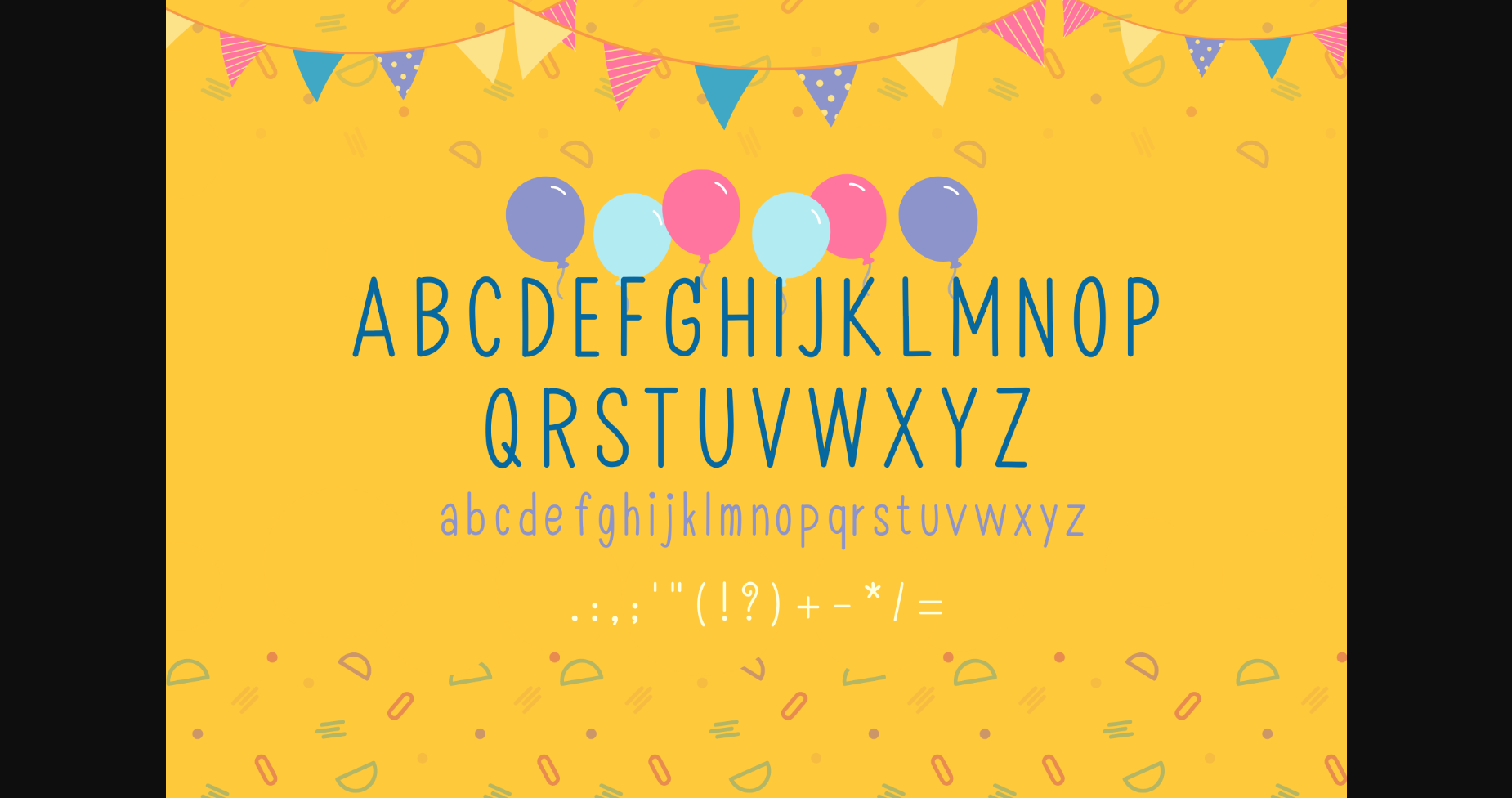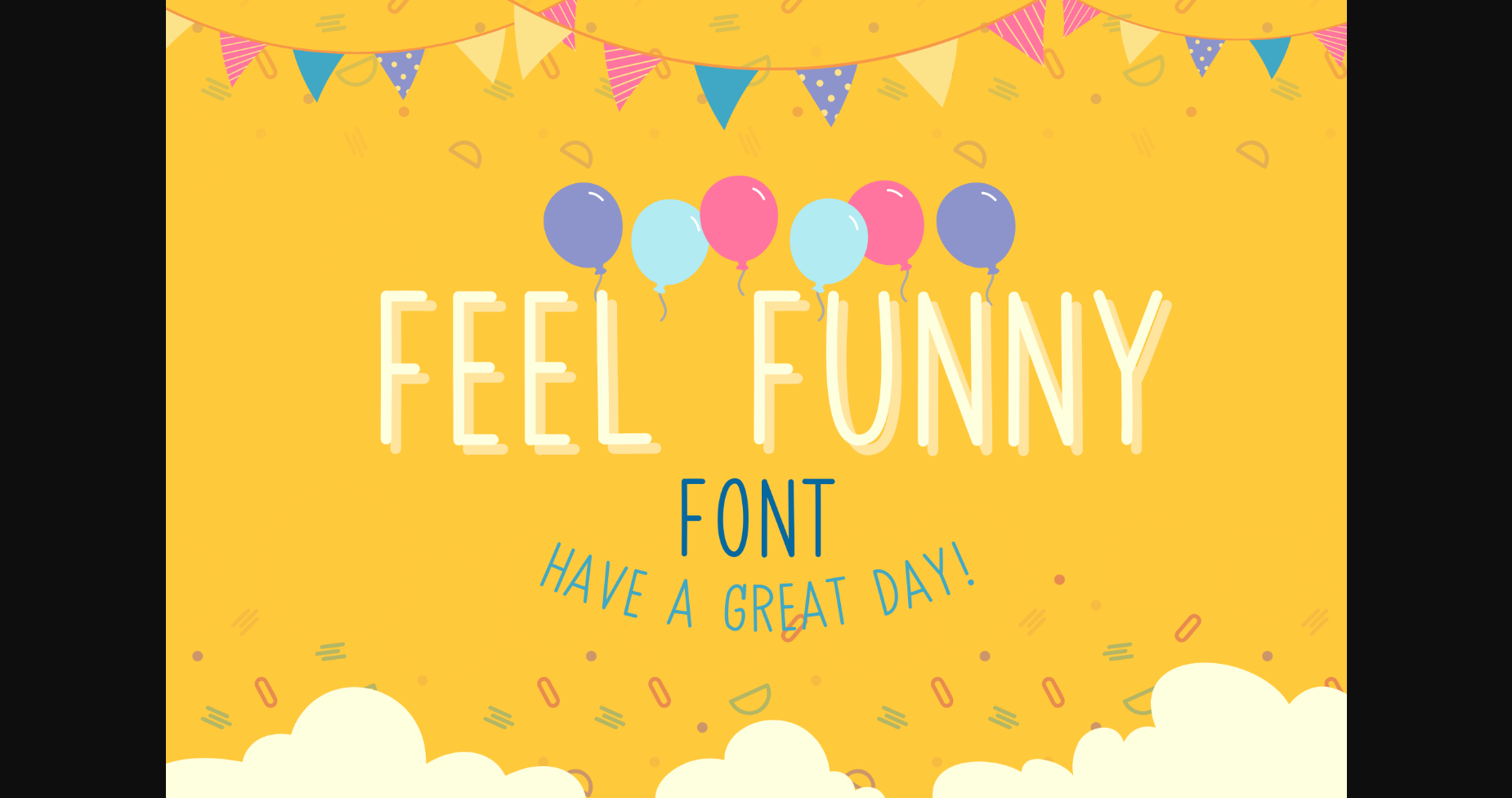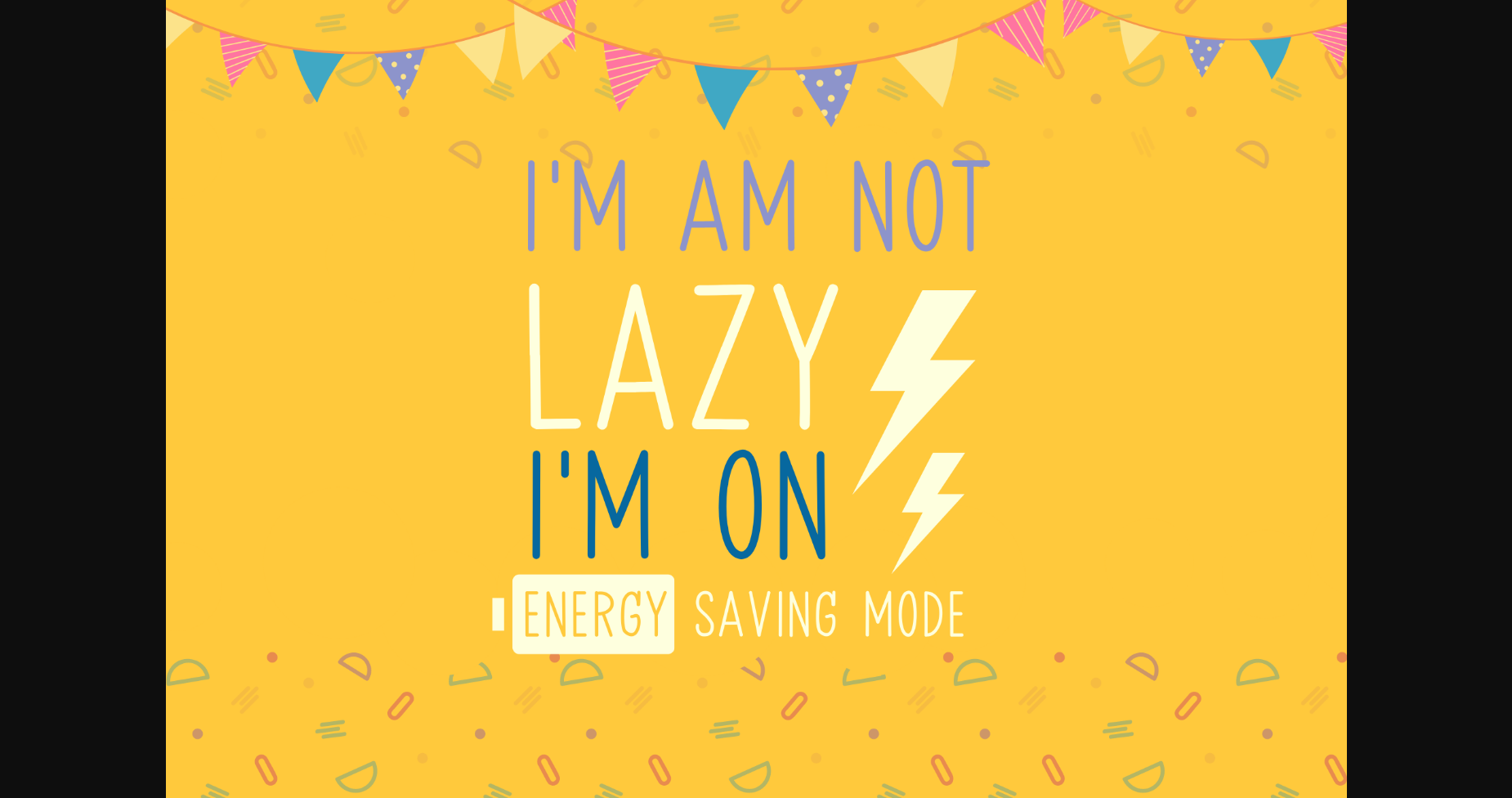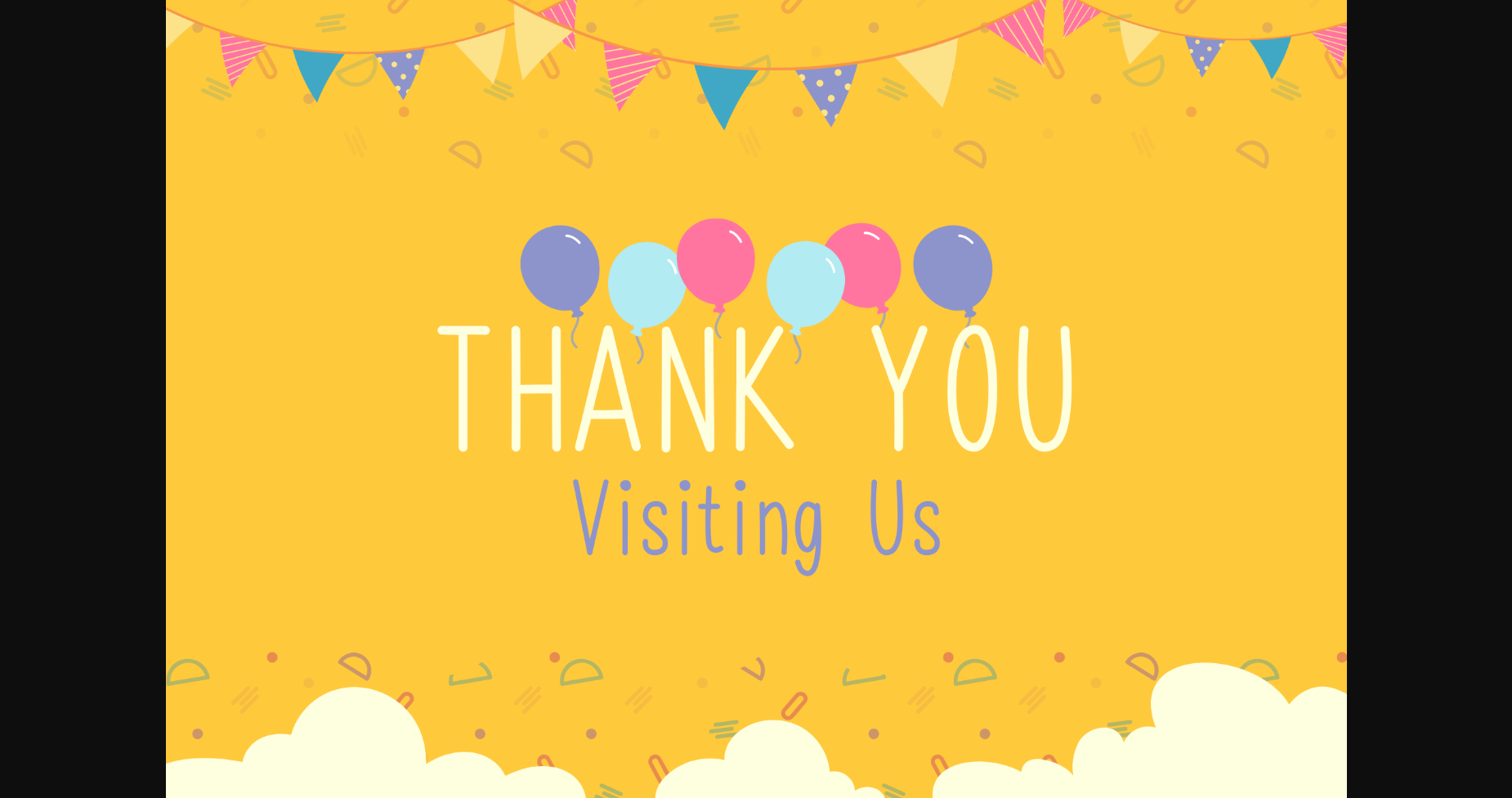
Feel Funny Font
About Feel Funny Font
Feel Funny is a thin, funny, friendly, and cute sans serif font. It matches a wide range of creations that require a sweet, natural touch. This font is perfect for children-themed designs, especially when combined with bright colors.